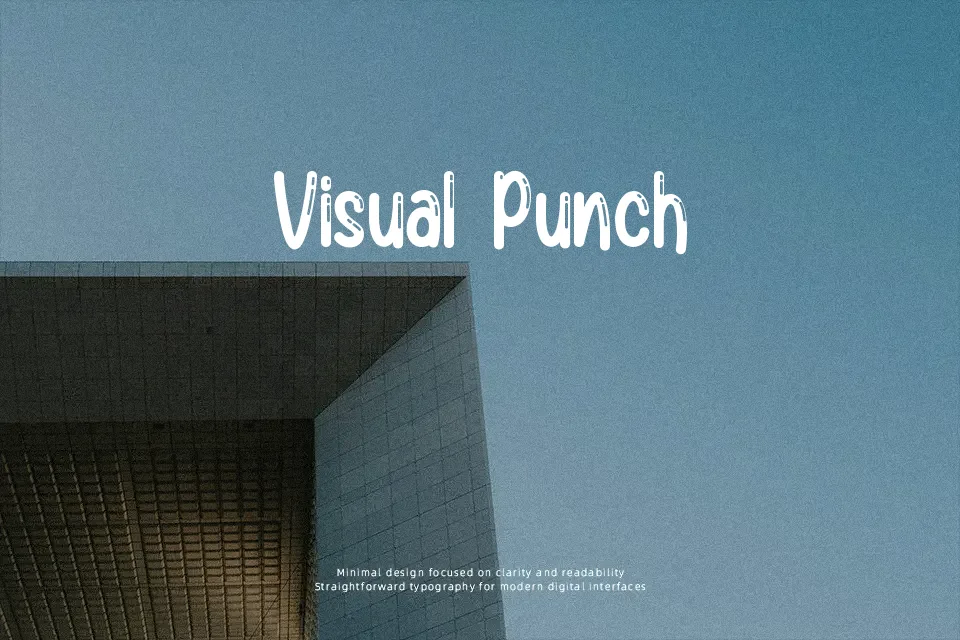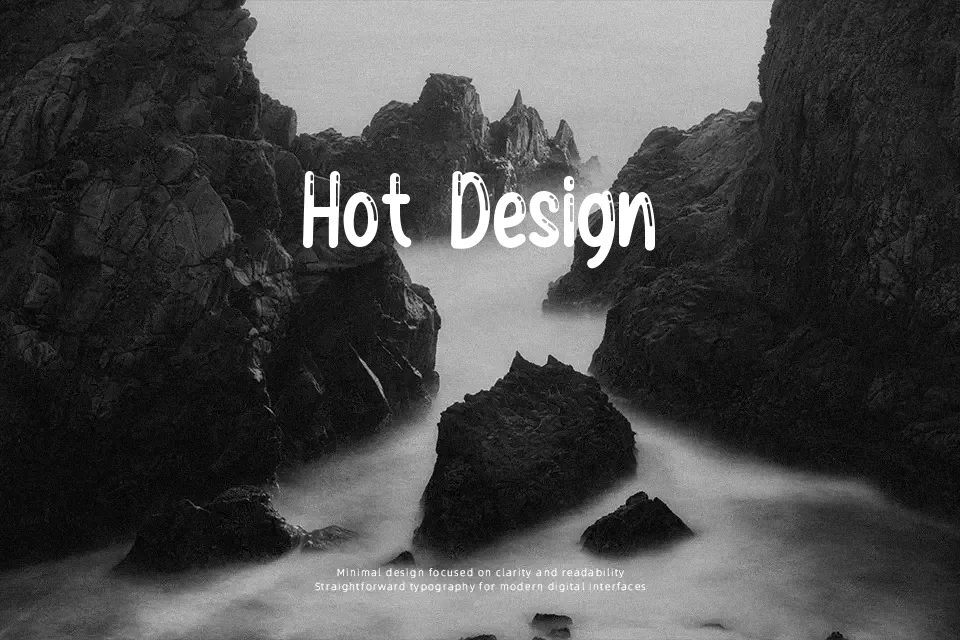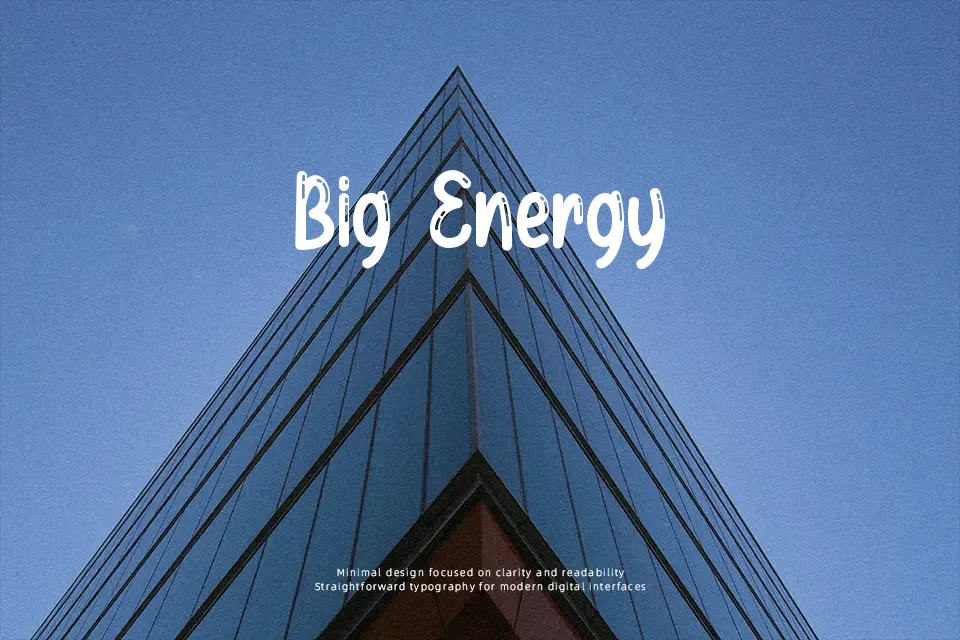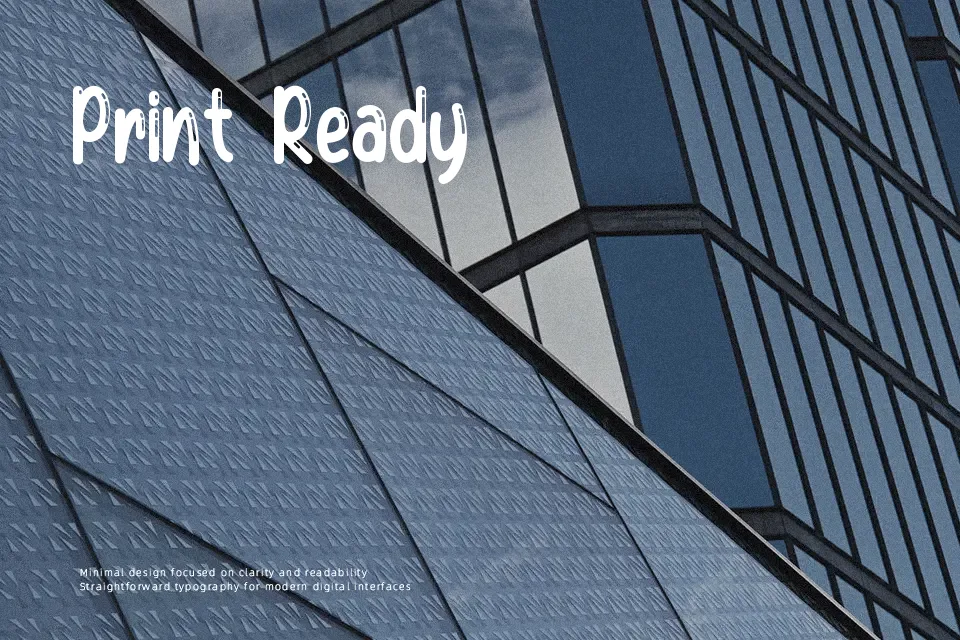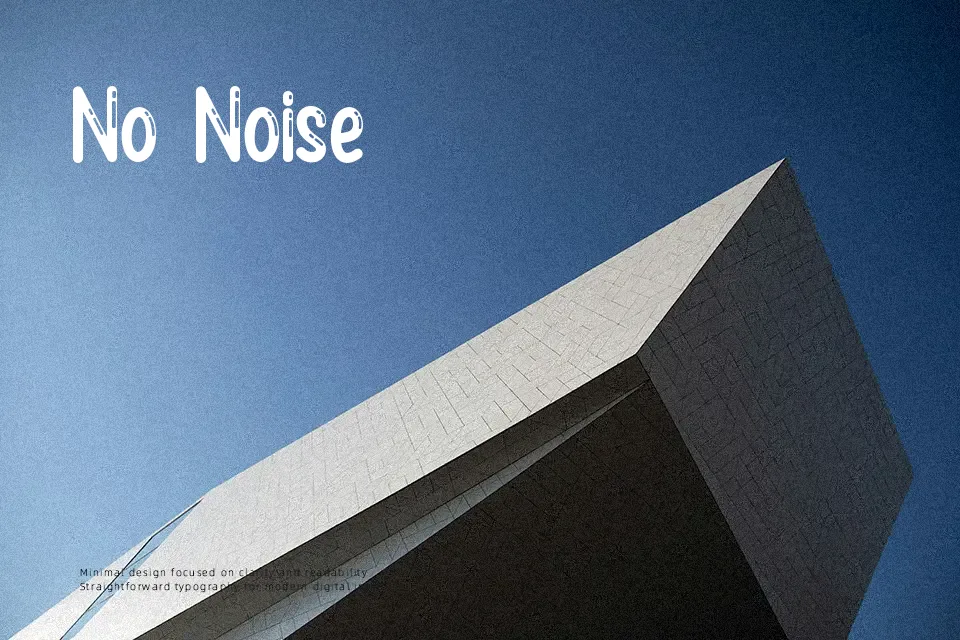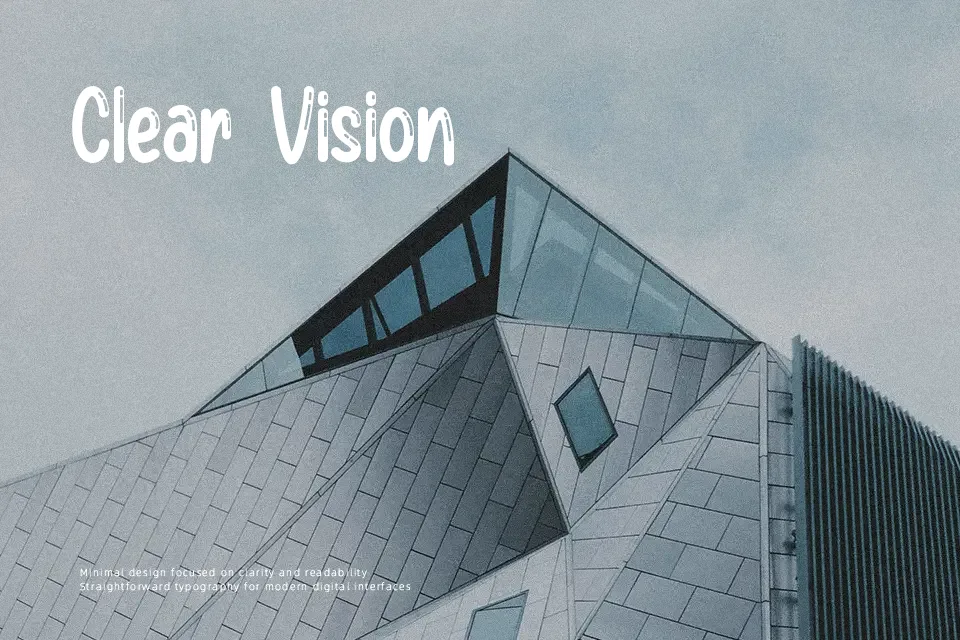
Baby Balloon Font
Designed by DumadiStyle
Baby Balloon leans into plump, bubble-like strokes with low contrast and smooth, rounded terminals, giving every letter a soft, inflated look. Spacing is relatively tight and slightly condensed, so headlines feel compact and bouncy rather than airy. This decorative, casual style fits children’s party invitations, baby product packaging mockups, and playful poster titles much better than serious or information-dense layouts. It struggles in long paragraphs because the bold, balloon shapes quickly become visually heavy and tiring to read. Use it where a lighthearted, cute accent is needed, and switch to a simpler sans serif for body copy or formal branding.
kids’ birthday invitation titles
baby shower posters and banners
playful headings on kids’ product mockups
formal corporate or legal documents
minimalist or highly professional branding
Perfect for headline, kids, and logo, with a creative and comic style.